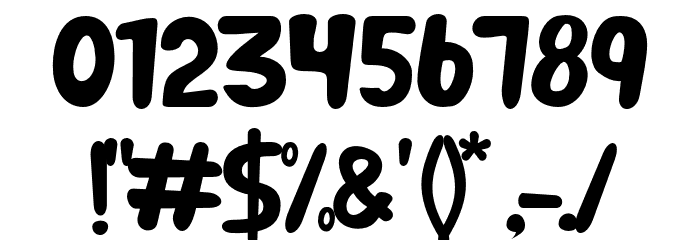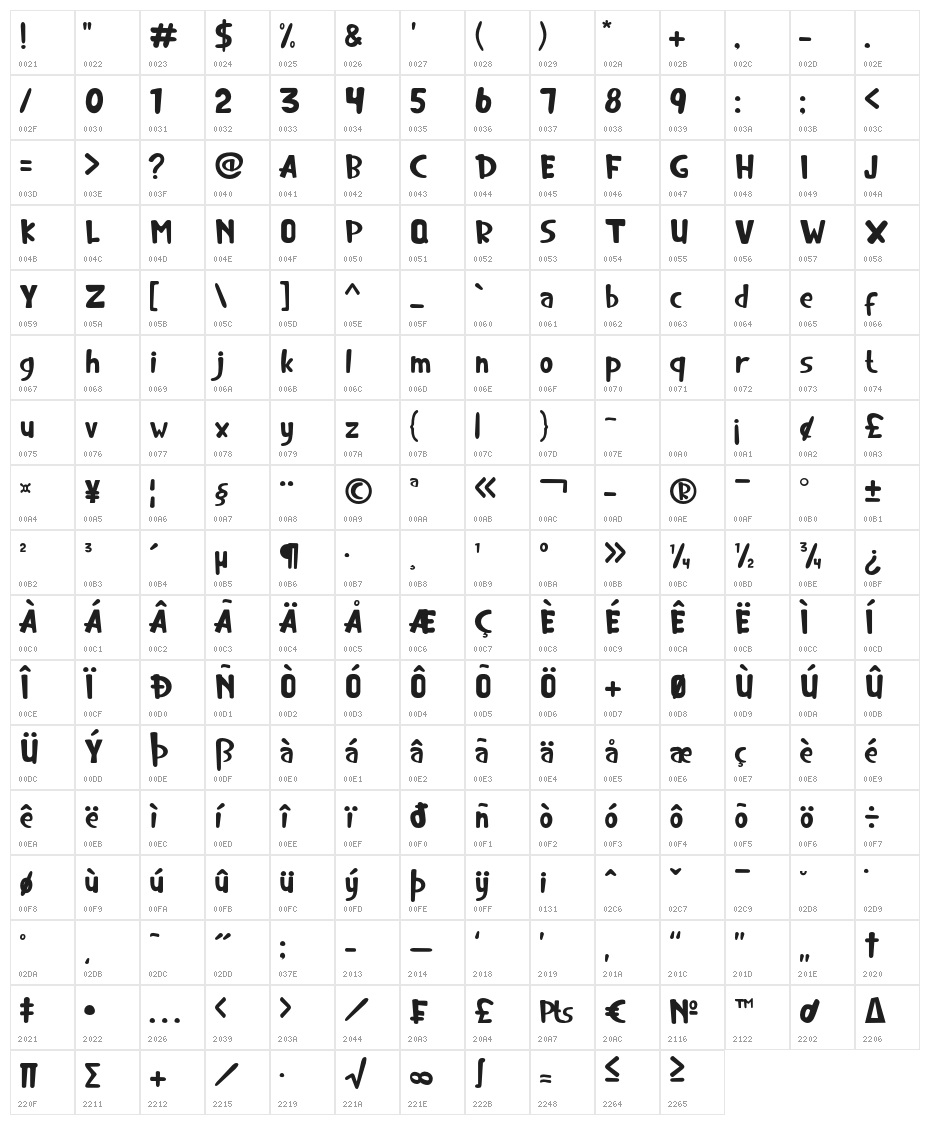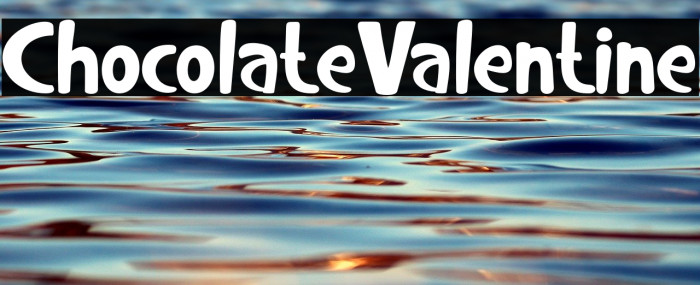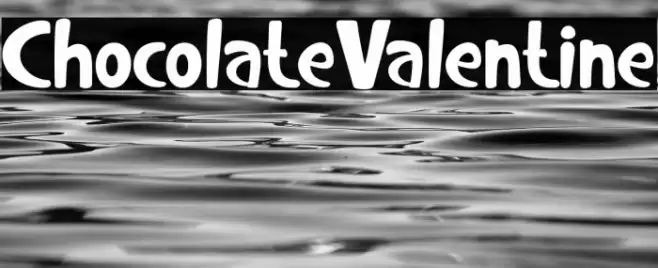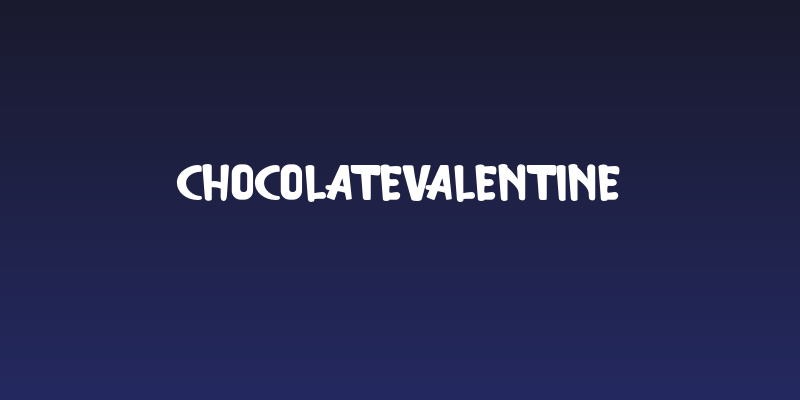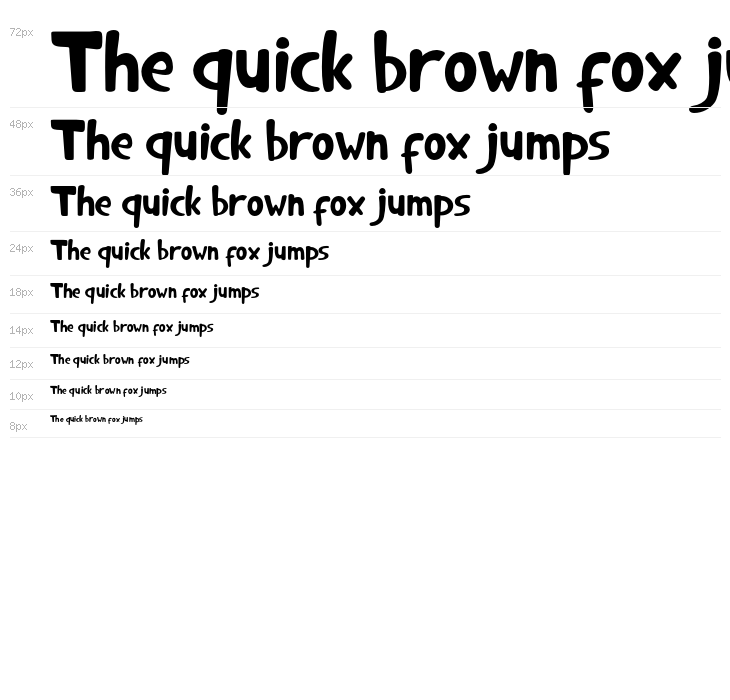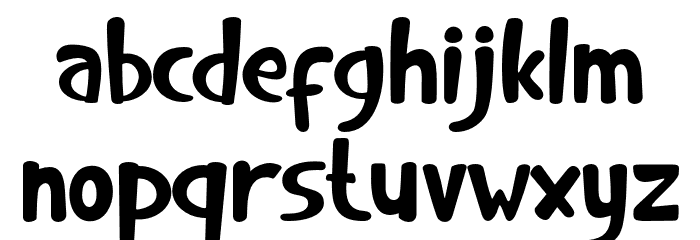
ChocolateValentine Font
ChocolateValentine Description
This playful and bold font features a whimsical, hand-drawn style that exudes a sense of fun and creativity. The letters are rounded and slightly irregular, giving them a friendly and approachable appearance. The uppercase and lowercase characters maintain a consistent style, with smooth curves and a slightly exaggerated thickness that adds to the font's charm. Numbers and special characters are designed with the same playful aesthetic, ensuring a cohesive look across all text elements. This font is perfect for projects that require a touch of personality and warmth.